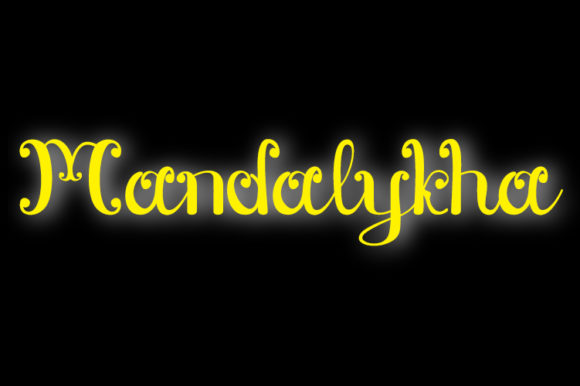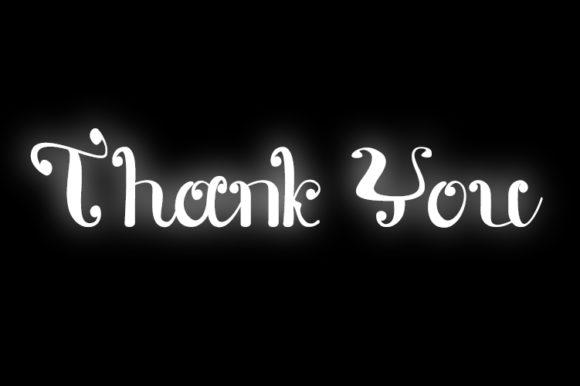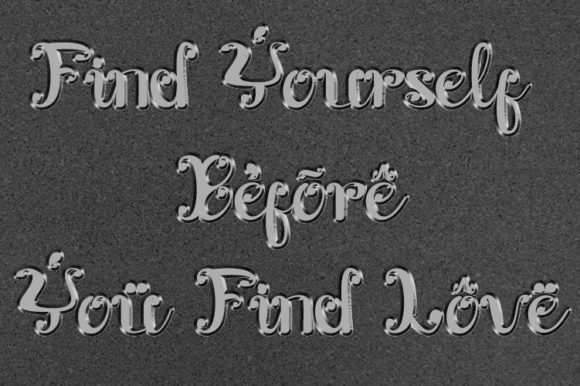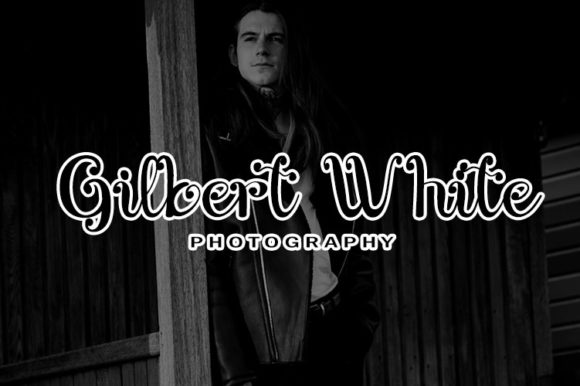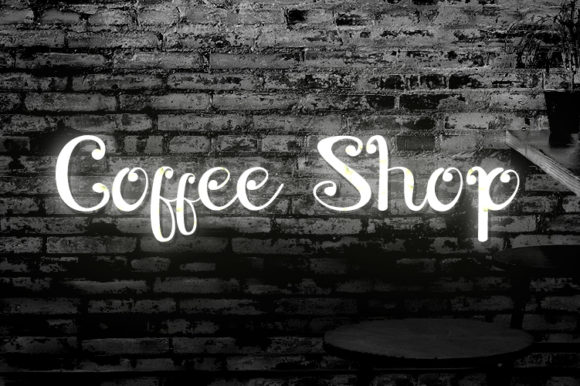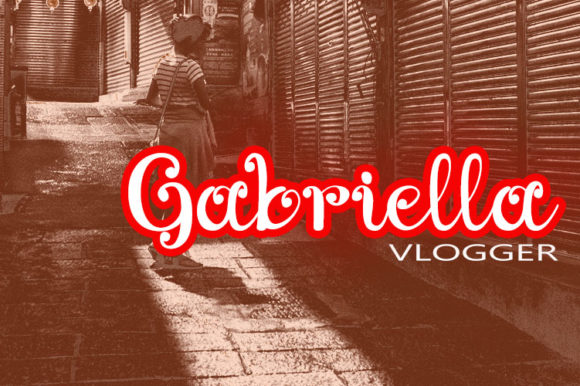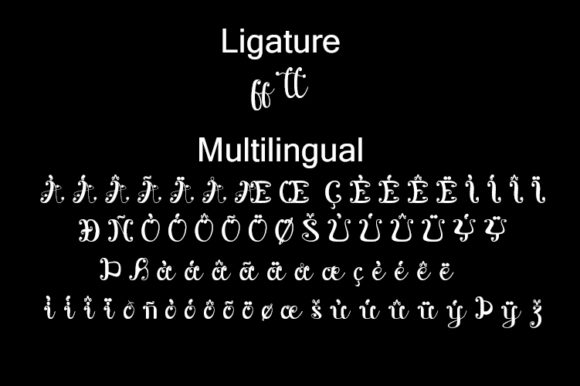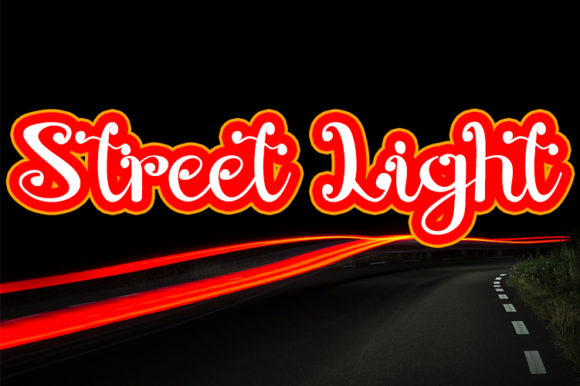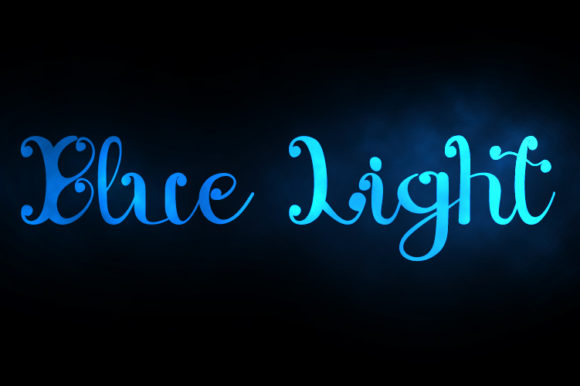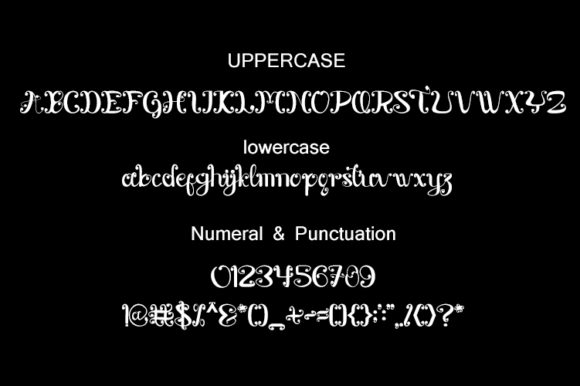
Mandalykha Font
About Mandalykha Font
Mandalykha is a very unique script font, inspired by a tourist spot located in Central Lombok Regency. Mandalykha’s stylish feel will most certainly add an eye-catching appeal to your logo designs, brand imagery, quotes, product packaging, merchandise & social media posts.